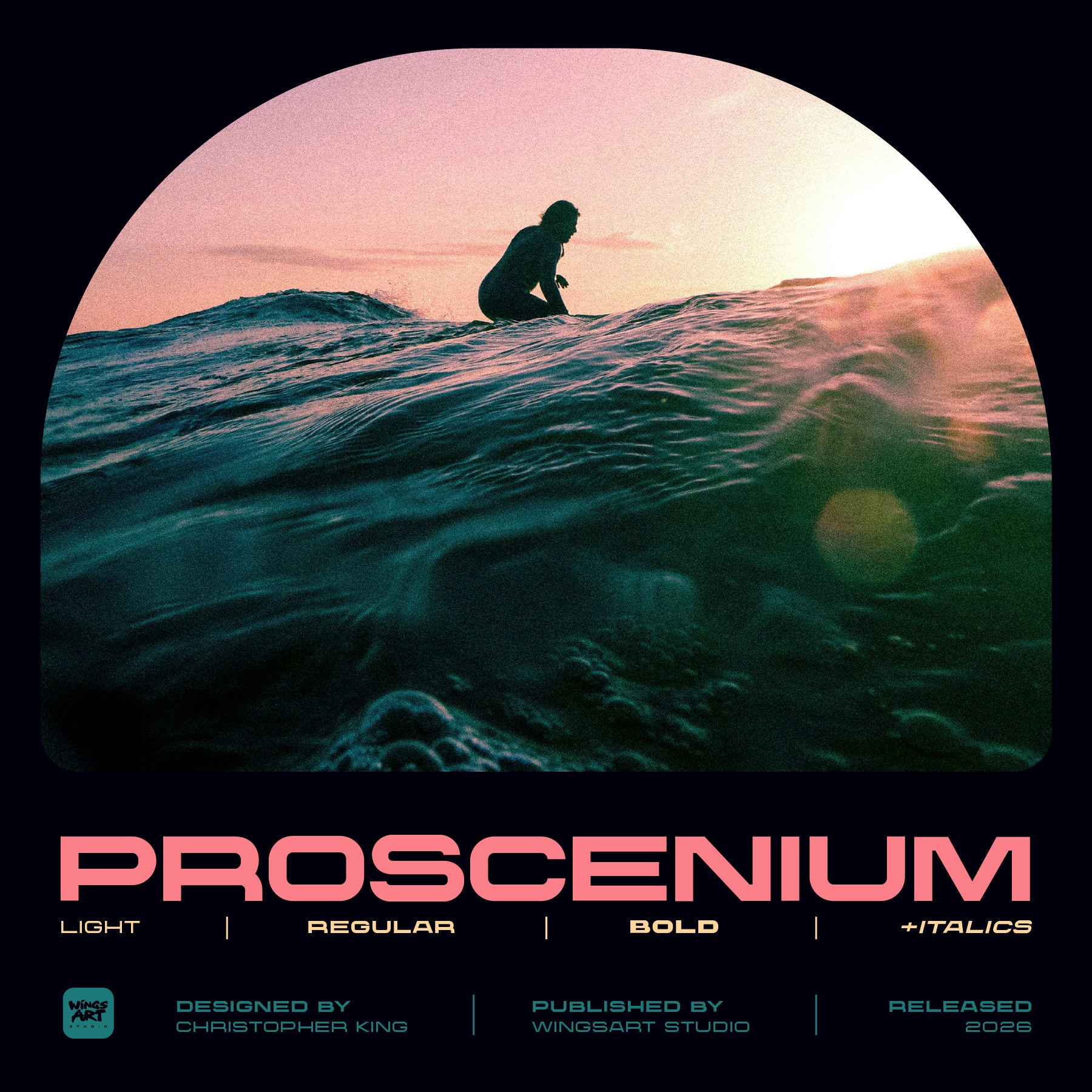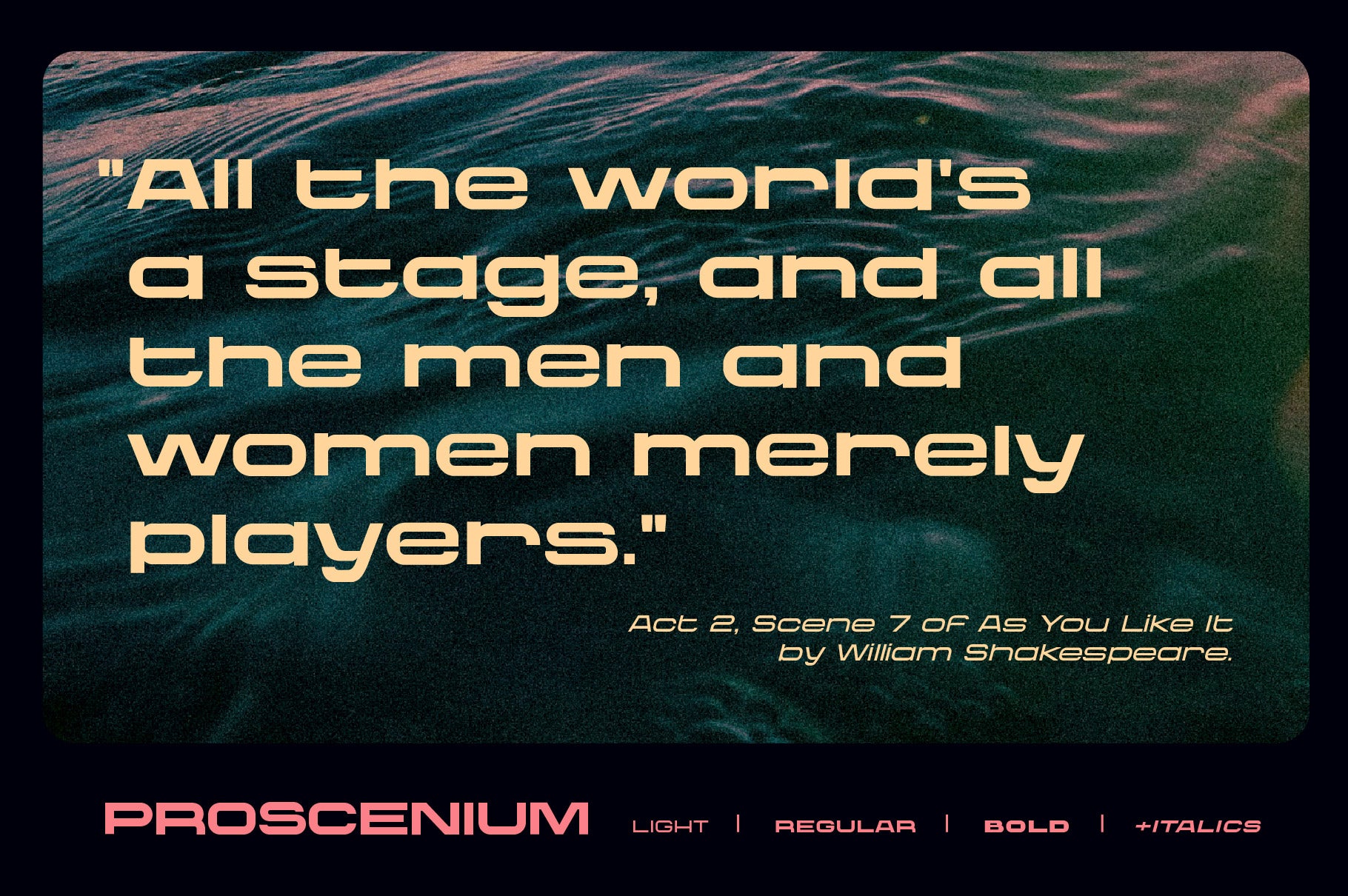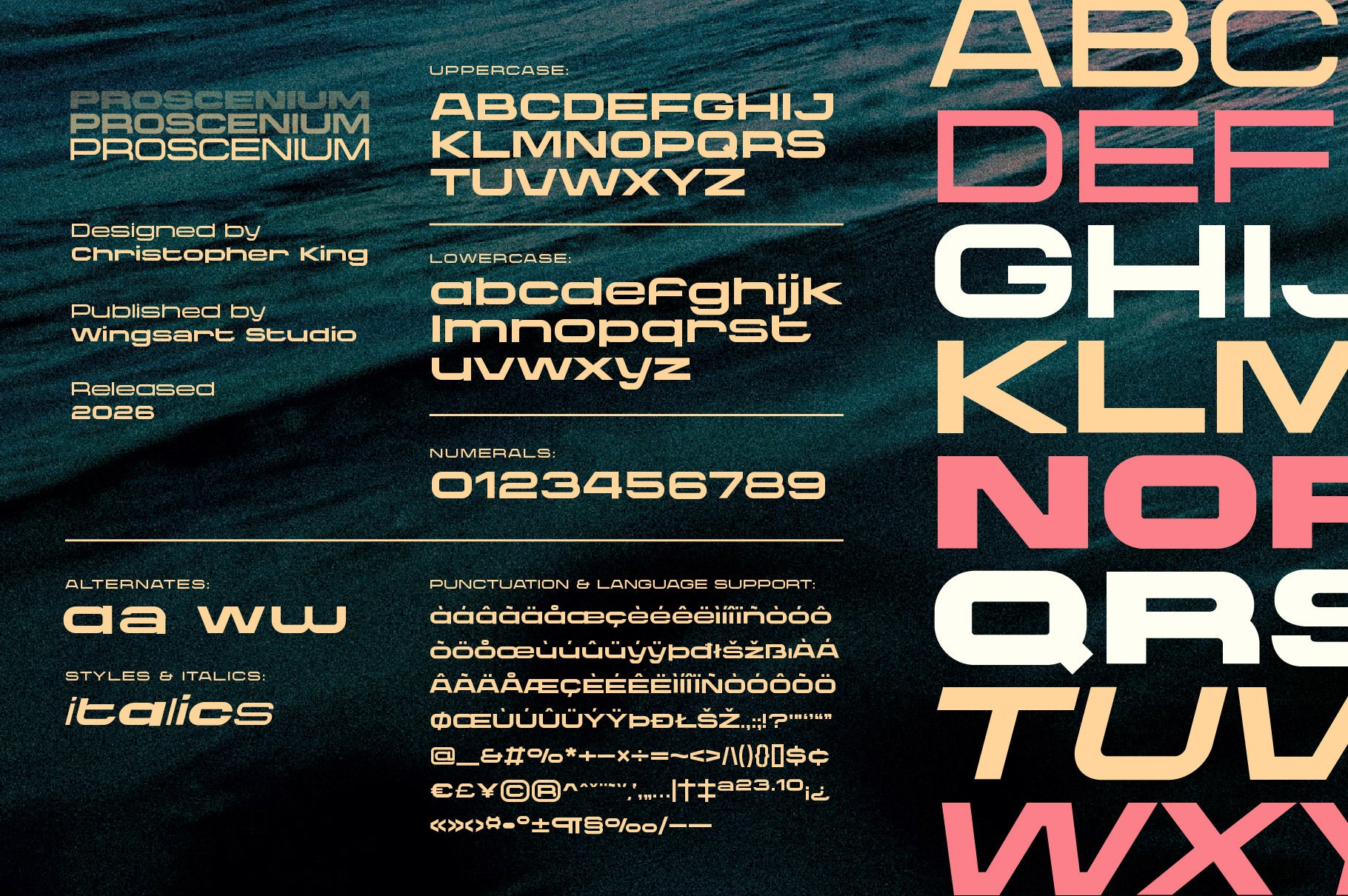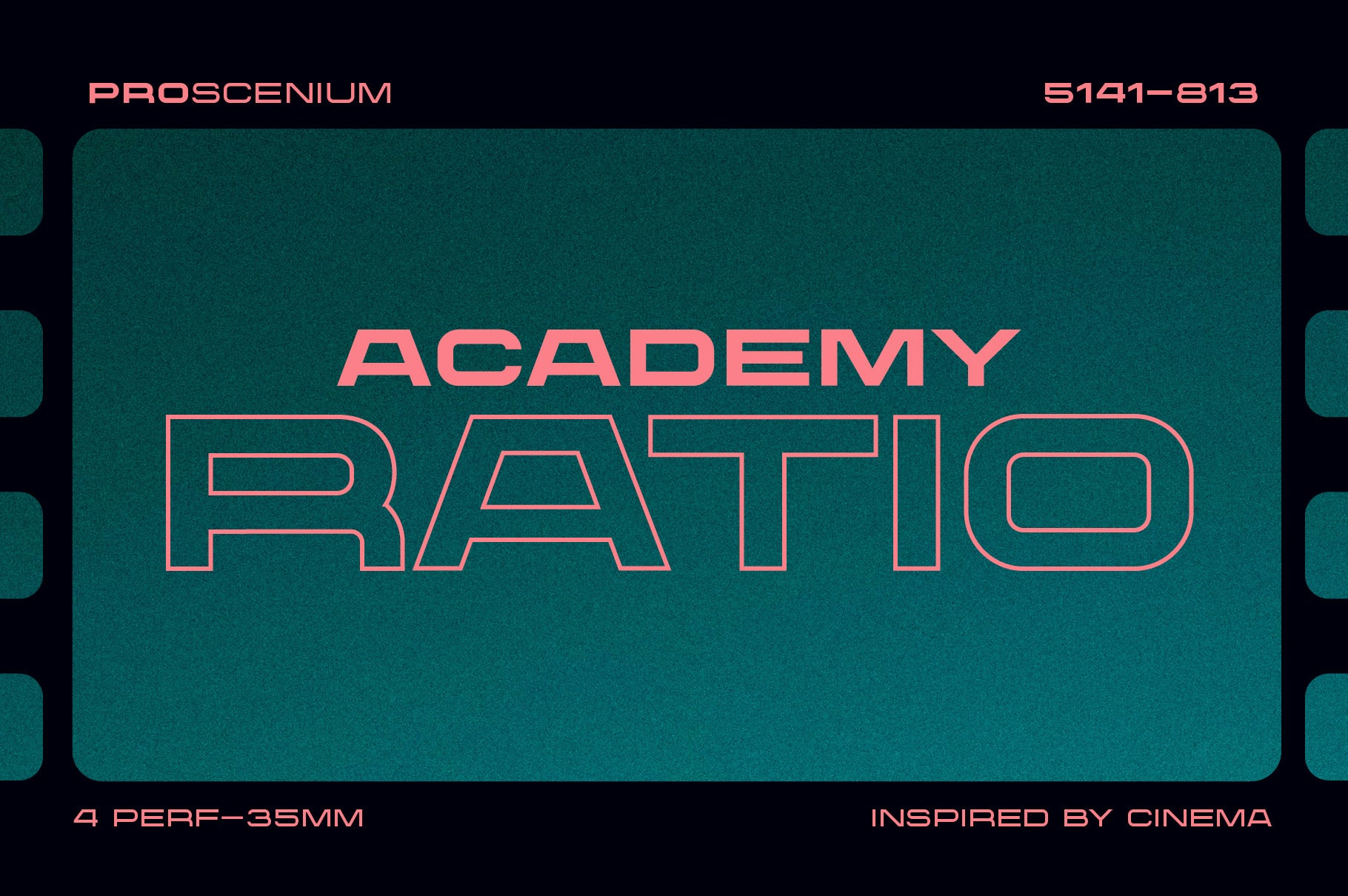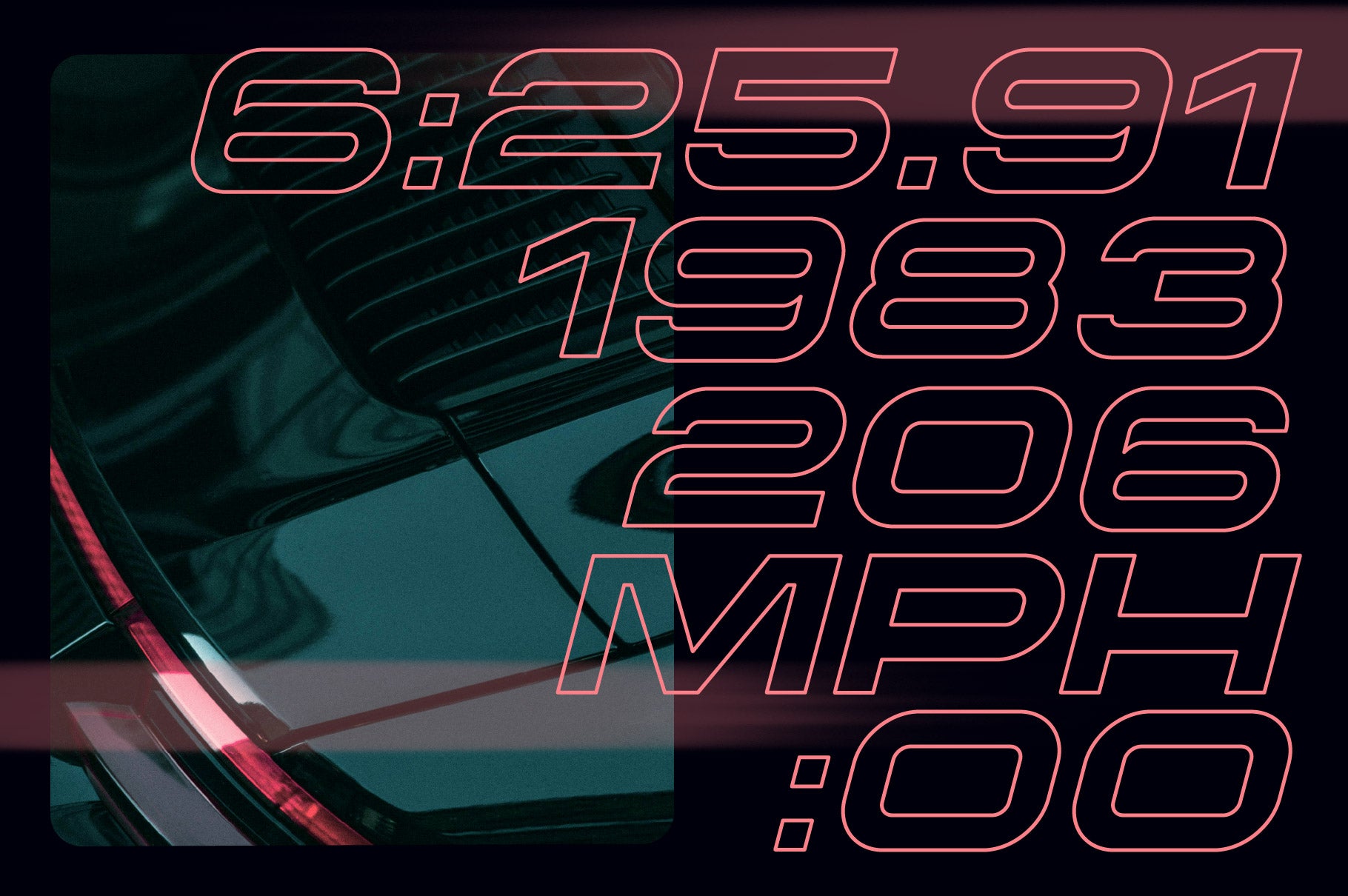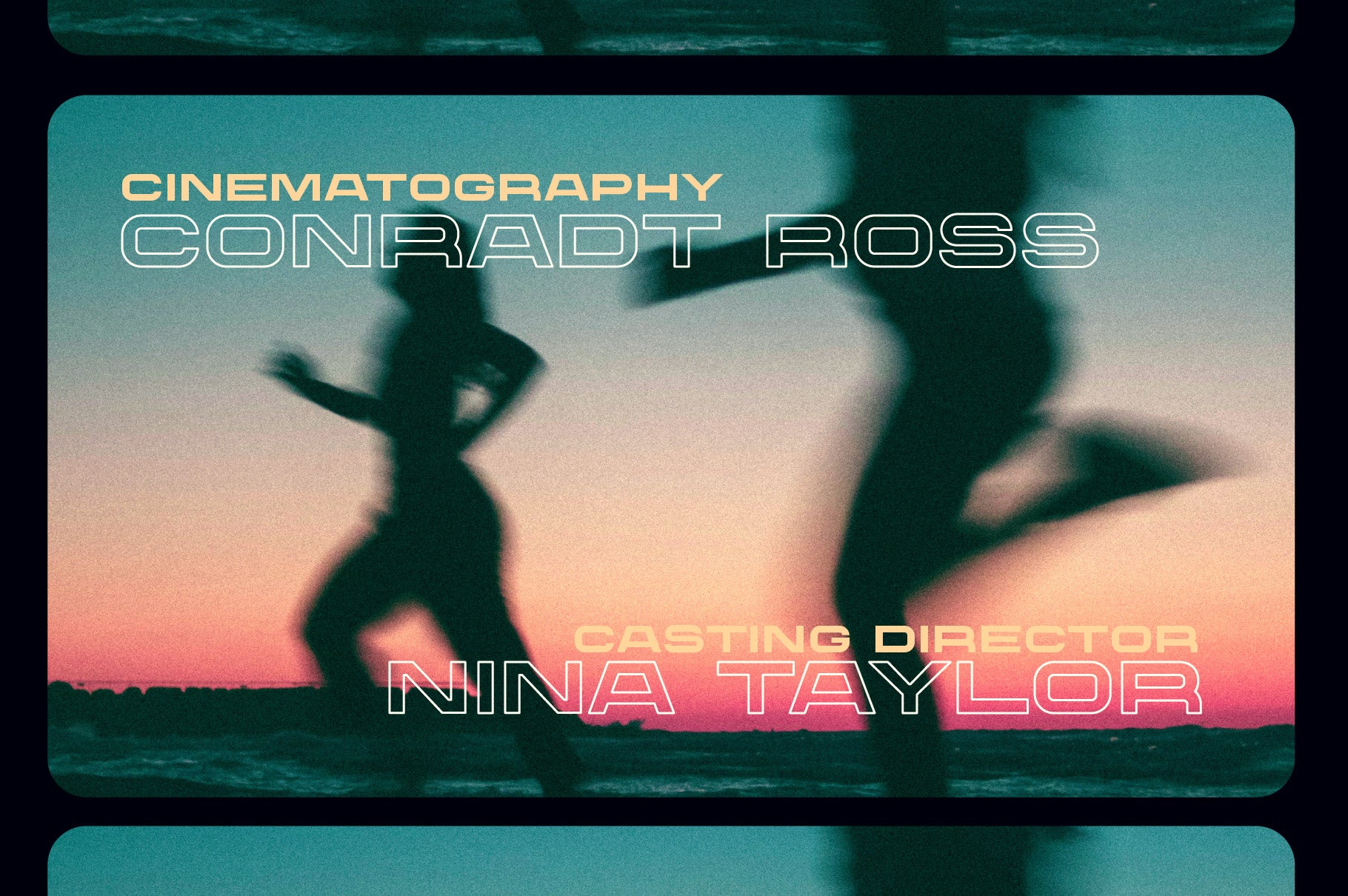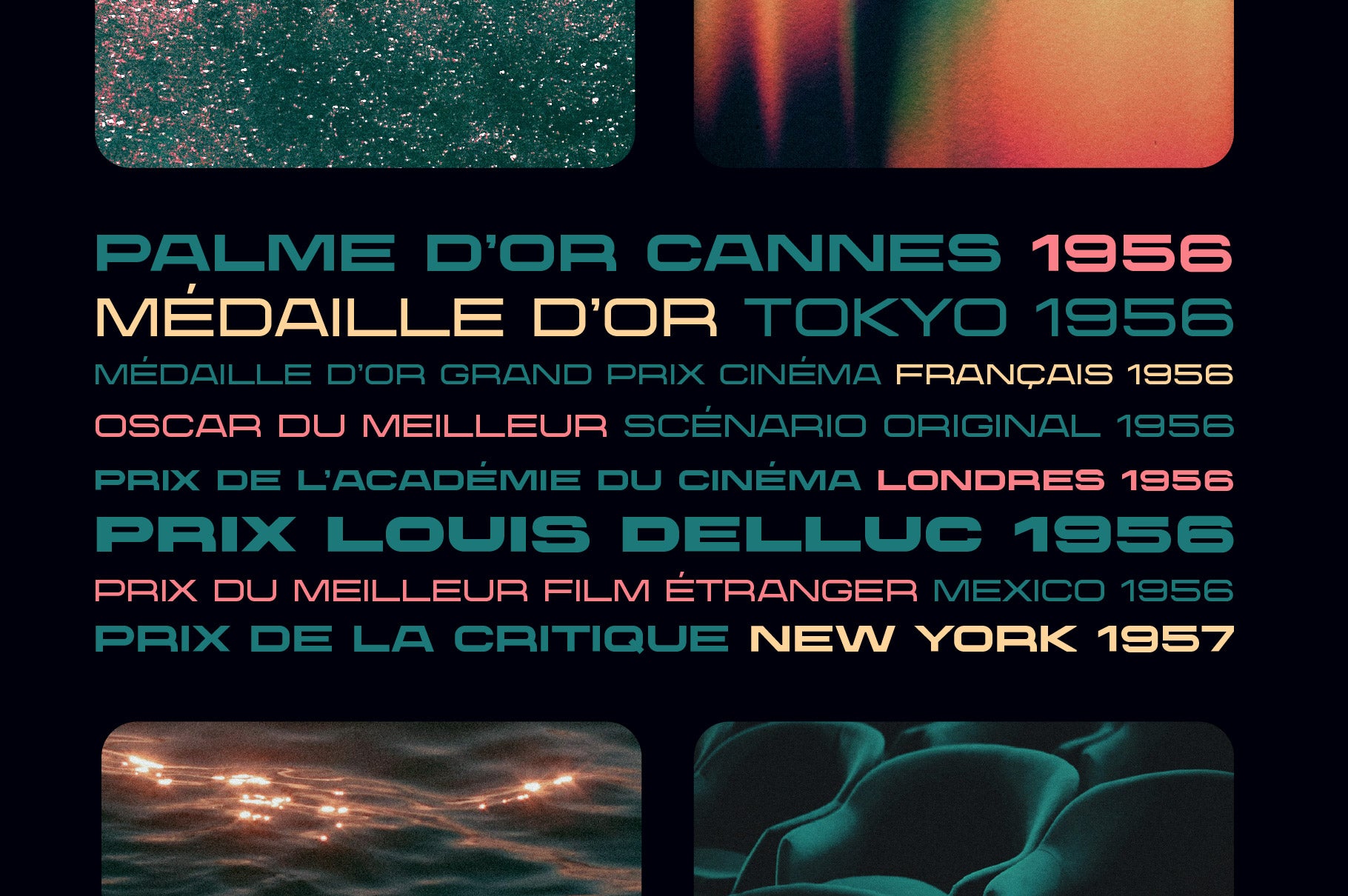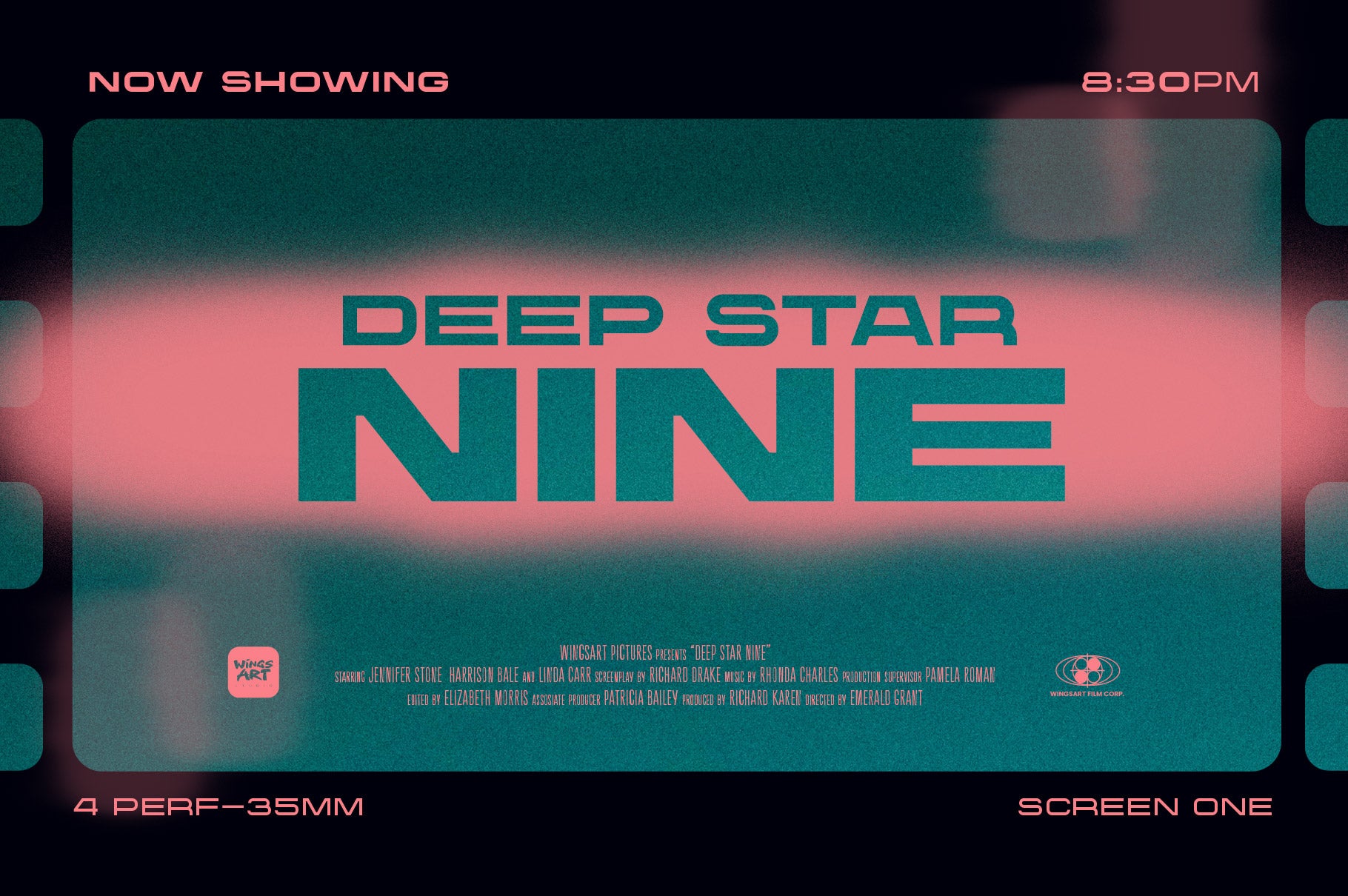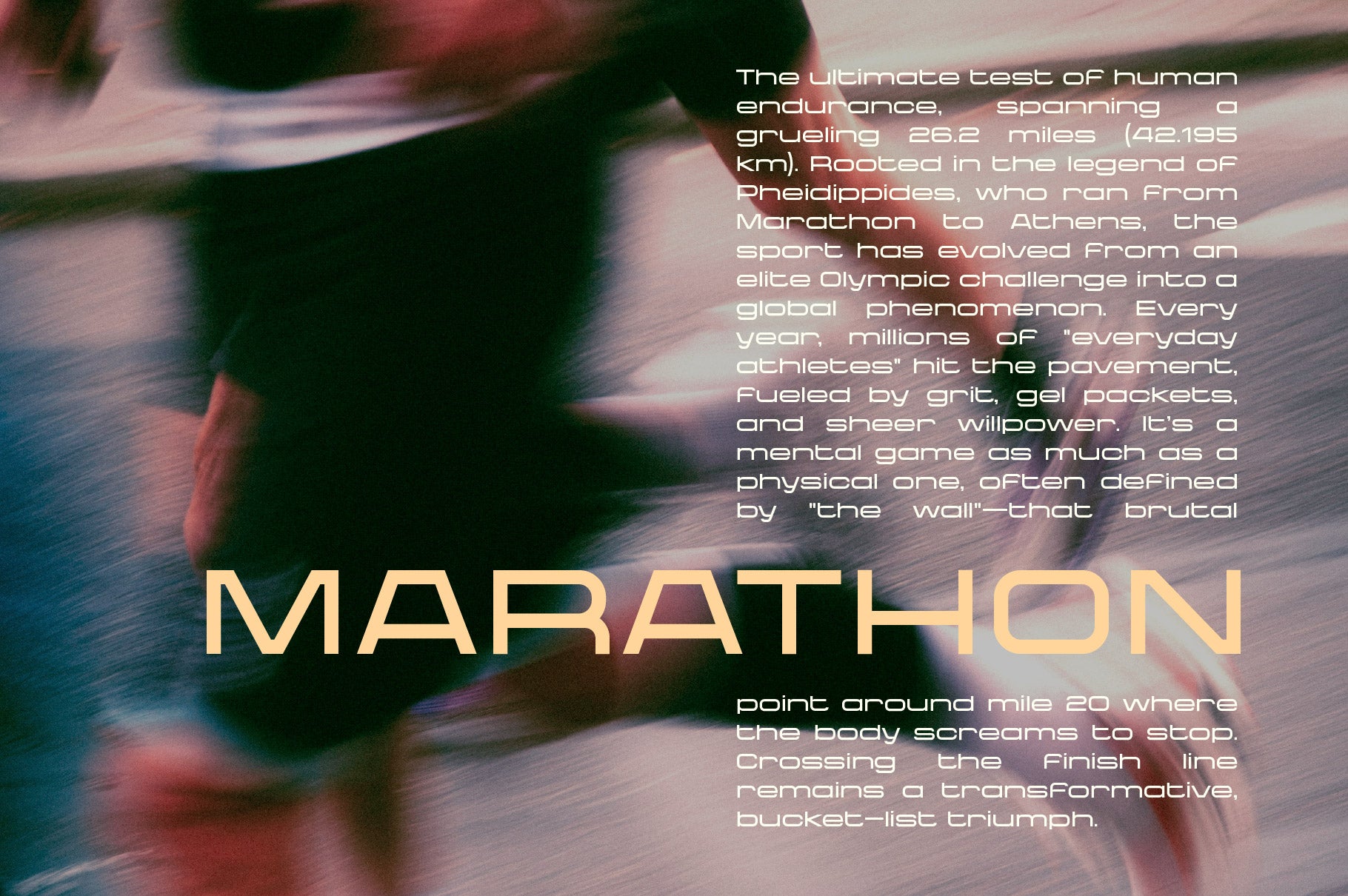
Proscenium - A Wide Sans-Serif Font Designed for Cinema
Proscenium is an impactful sans-serif font designed to compliment the widescreen aspect ratio of big screen movie productions.
Inspired by the typography of opening titles and credit sequences, the Proscenium font was created to match letterbox style aspect ratios, typical of 35, 65, or 70mm cinema film formats. It boasts a clean, legible style that projects a mature strength, while versatile enough to sit comfortably among contemporary, period or science-fiction genres. It's works equally well across print and digital media, making for impactful headers or quotes for magazine editorials, album art or social media.
It comes in three weights: Light, Regular and Bold, along with italic styles, all including complete uppercase and lowercase alphabets, numerals, punctuation, symbols, and multilingual support.
Proscenium is a wide sans-serif font specifically designed for cinema, featuring a clean and legible style that complements widescreen formats. It includes three weights (Light, Regular, Bold) and corresponding italic styles, with complete uppercase and lowercase alphabets, numerals, punctuation, symbols, and multilingual support, available in OTF, TTF, and WOFF formats.